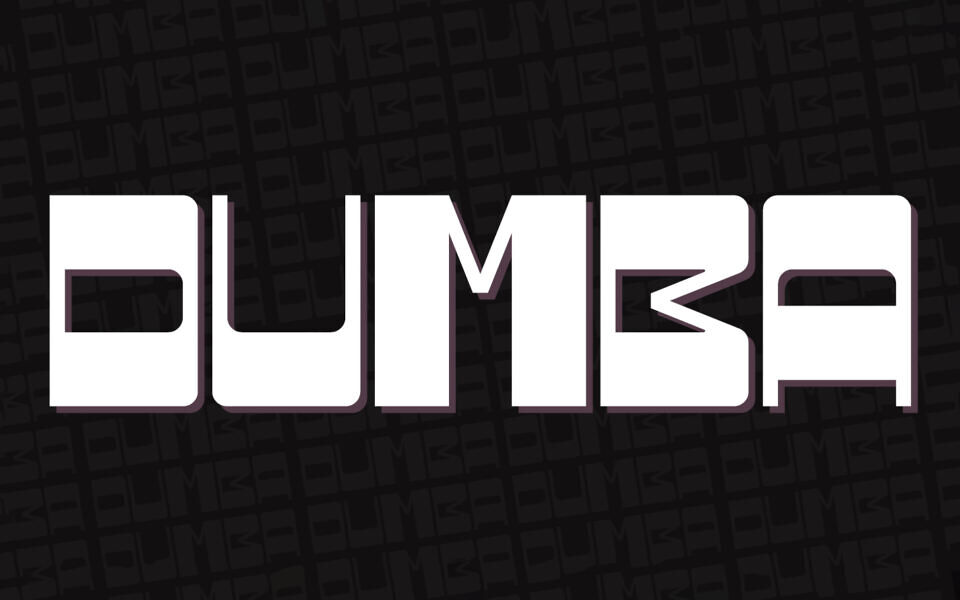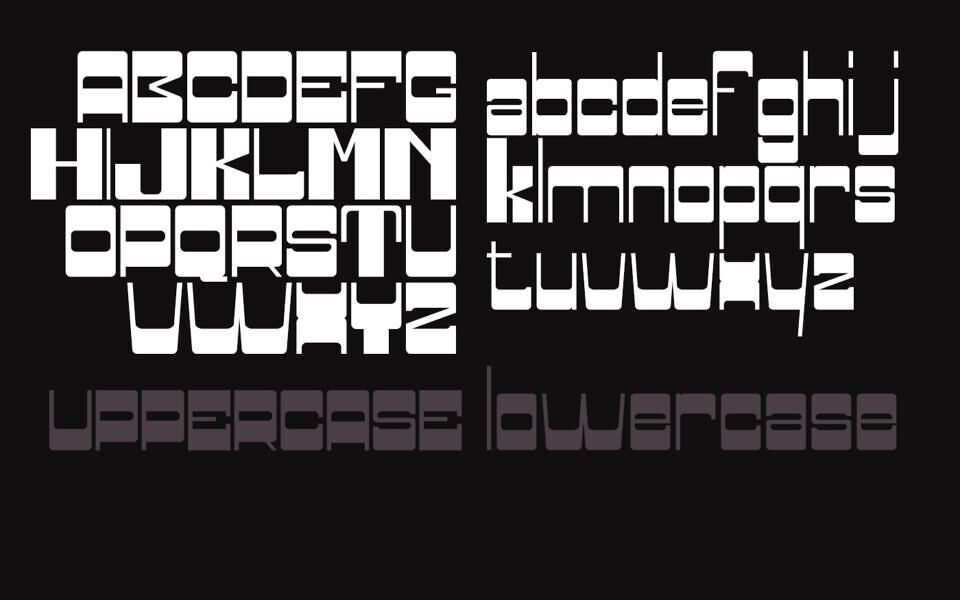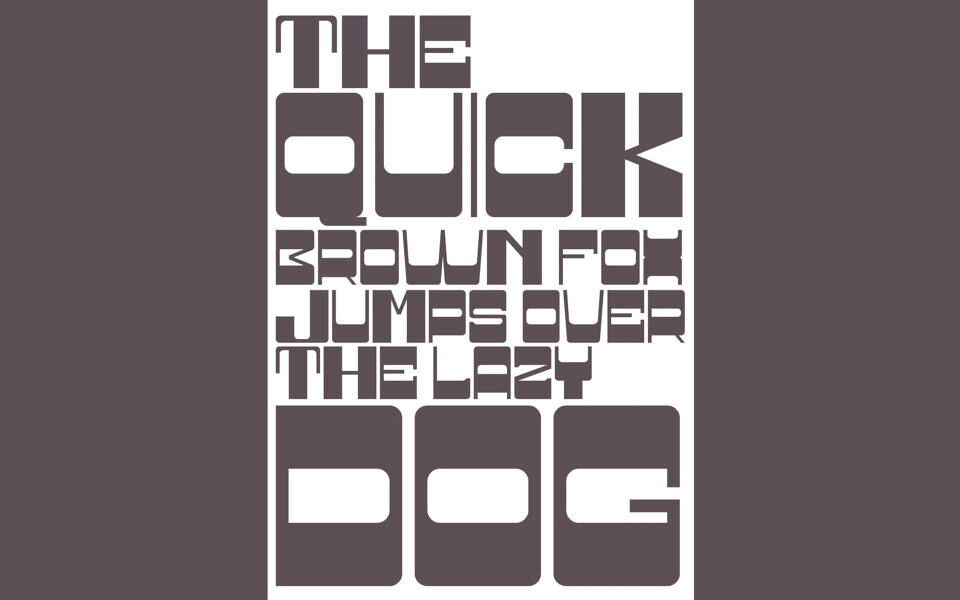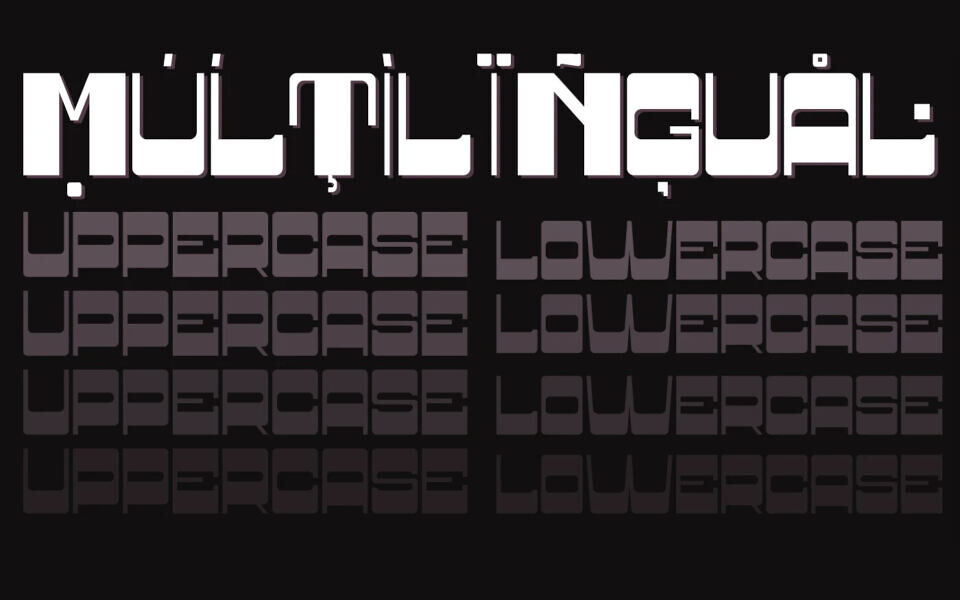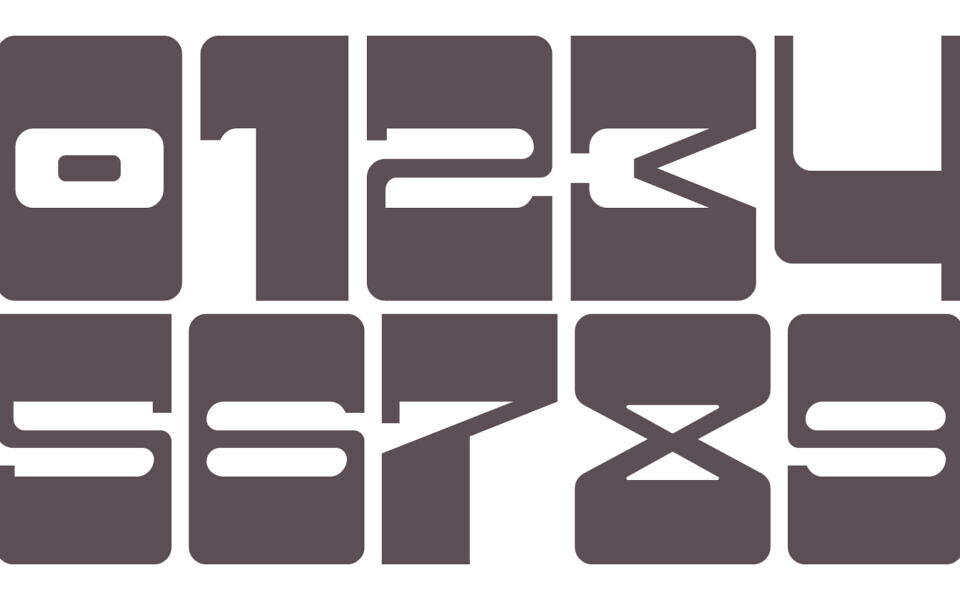
DUMBA is a bold italic display typeface with a futuristic, geometric style and playful energy. Its thick strokes, rounded corners, and slanted design offer strong visual impact, making it ideal for headlines, posters, logos, and modern layouts.
DUMBA’s vibrant character shines in creative projects like video game covers, electronic music promos, and urban-themed designs.